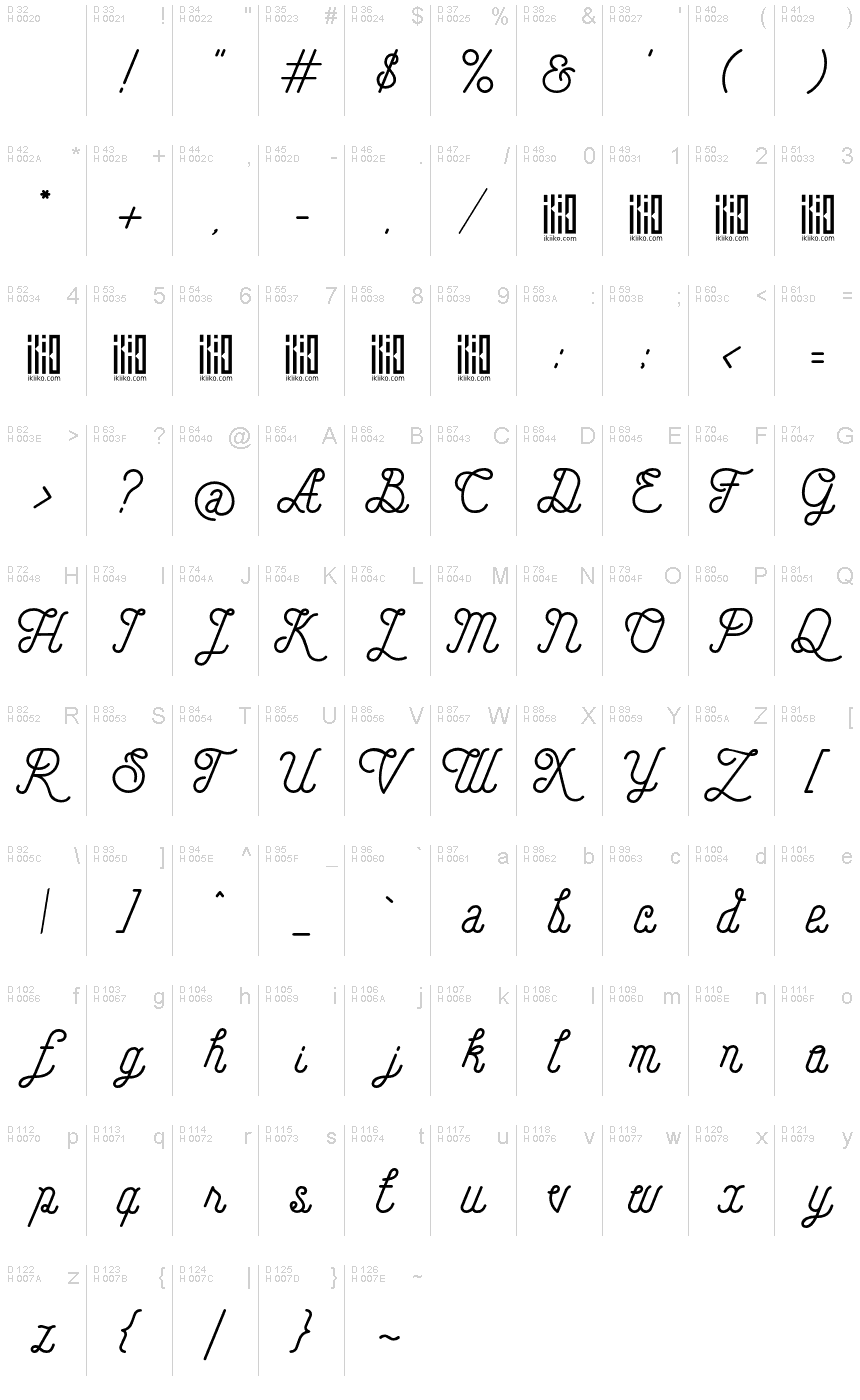
Hellofolks ikiiko.com
Hellofolks, a creation by Ikiiko Type, brings the charm of handwritten correspondence into the digital age with its light and flowing aesthetic. Its delicate strokes evoke a sense of personal touch and warmth, often lost in the sea of typed communication. The font's fluidity is reminiscent of traditional cursive writing, while maintaining readability and modern flair.
The elegant curves and fine lines of Hellofolks make it an excellent choice for invitations, branding projects, or any design endeavor that requires a touch of intimacy and sophistication. This font's handwritten style adds a bespoke element to creative works, making it ideal for those looking to infuse their designs with character and individuality.
Visually appealing with its gentle sway and unassuming weight, Hellofolks stands out as both approachable and artistic. It invites designers to explore its versatility across various mediums—whether it be on-screen graphics or printed materials—without sacrificing comfort for style. Embrace the allure of this light handwritten font to add a personal yet professional touch to your next creative project.